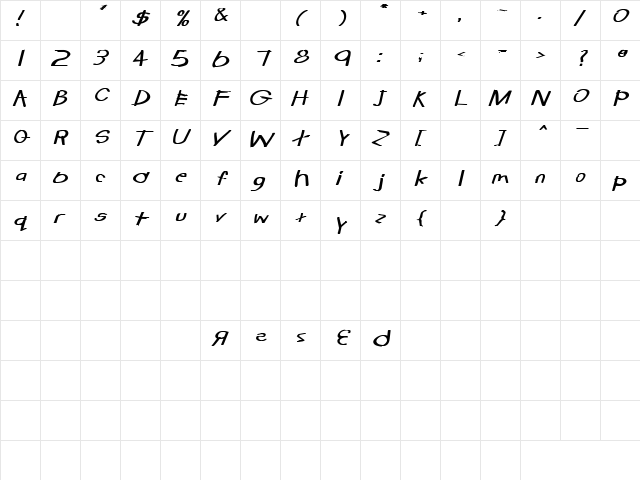
Catatonic 7 Bold Italic
Design Context for Catatonic 7 Typeface
Catatonic 7 is a composed and adaptable typeface that performs quietly and consistently across a wide range of design contexts. Its italic angle brings a sense of urgency and motion to the letterforms. The heavy weight commands attention and anchors typographic hierarchies.
Pro Tip: Try Catatonic 7 for annotation and caption copy alongside an upright companion — the contrast in angle creates a dynamic but ordered typographic system.